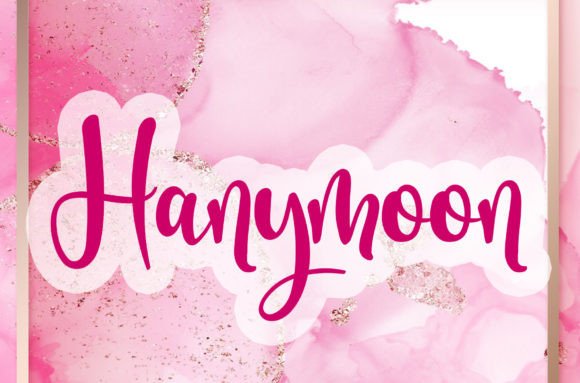
Introducing Hanymoon, a script font family crafted to evoke romance and elegance. Designed by the talented Sansana, Hanymoon is a calligraphic beauty, its characters waltzing along the baseline like a pair of lovebirds. This font is a dream come true for any design project seeking a touch of luxury.
With Hanymoon, you'll find your designs blooming into works of art. Its delicate strokes and flowing lines create a sense of timeless sophistication, perfect for projects such as wedding invitations, branding, and social media posts. Step into a world of enchantment and grace with Hanymoon, and let your creativity soar.
Hanymoon is not merely a font; it's an emotional experience. Its every curve and flourish is a testament to the power of love and beauty. It's a font that speaks to the heart, transforming words into expressions of affection.